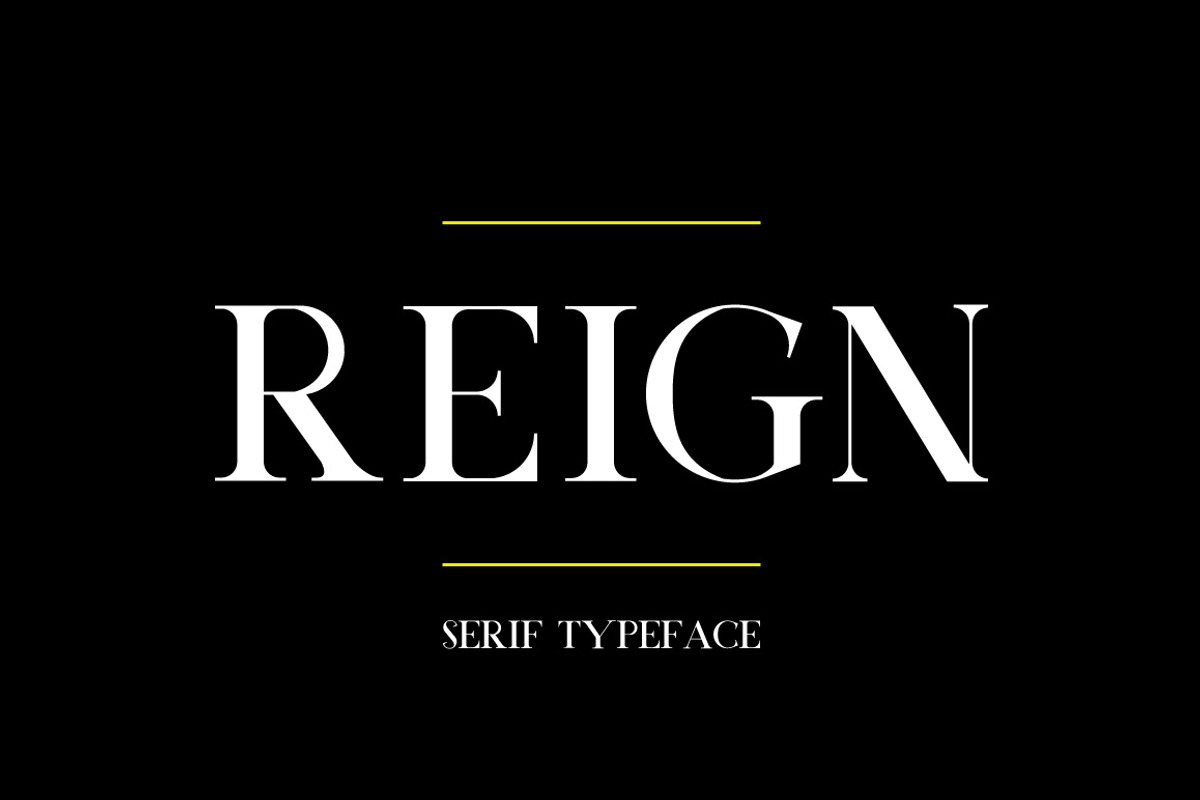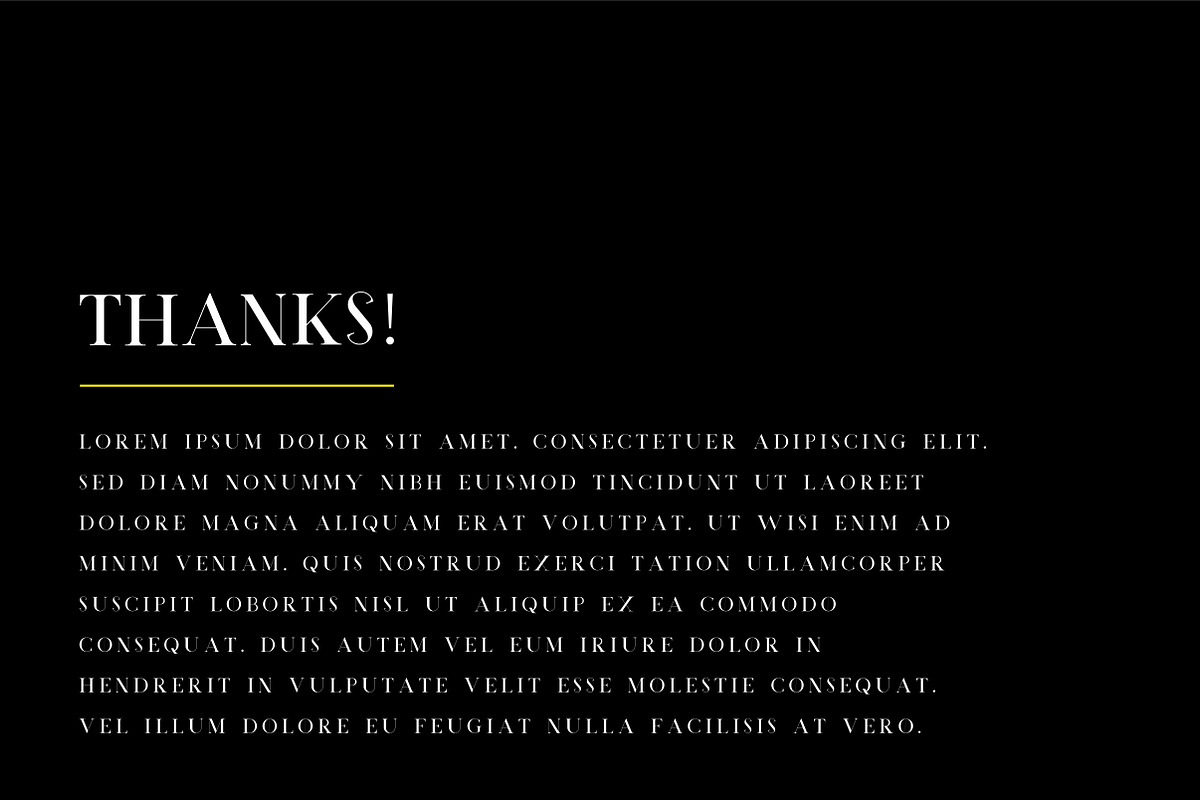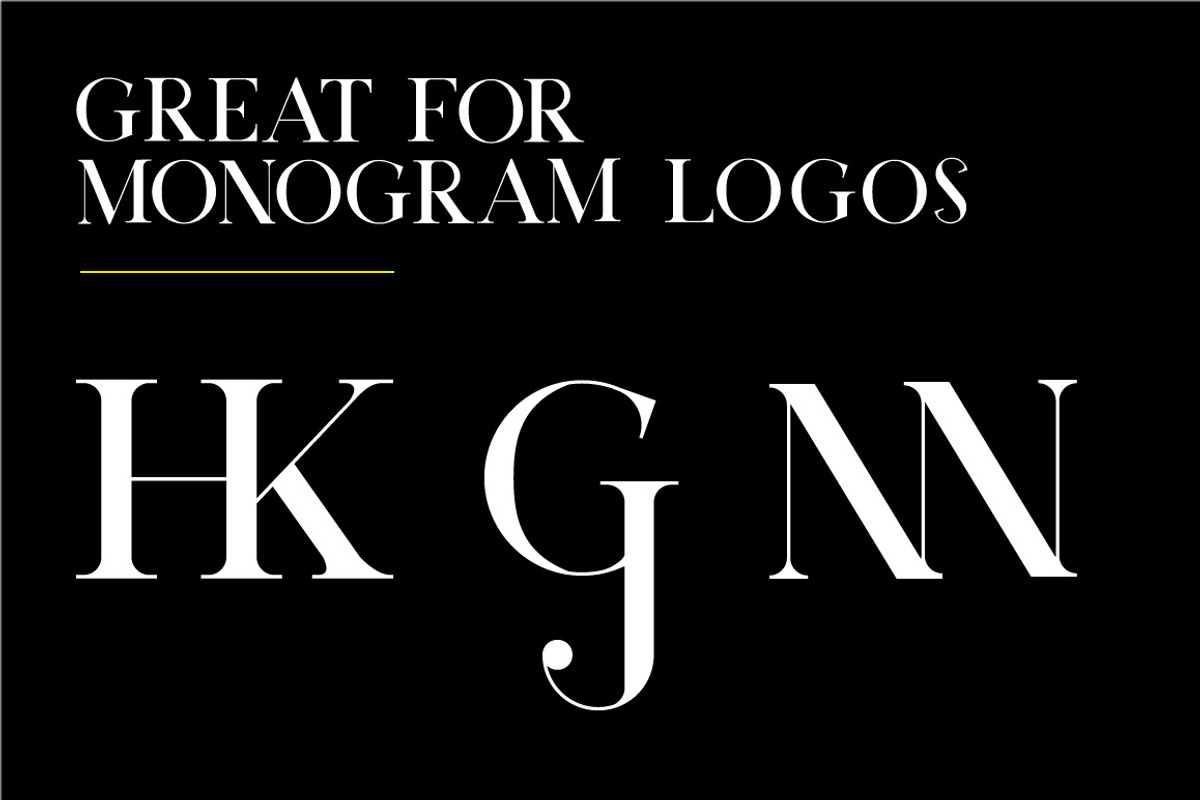
Reign | Serif Typeface
Reign | Serif Typeface by MikeHill is a font selected for branding, posters, packaging, typography.
- Reign Regular
- Reign Stencil
Why Reign | Serif Typeface is worth a look
Reign | Serif Typeface by MikeHill fits naturally into Branding, posters, packaging, typography.